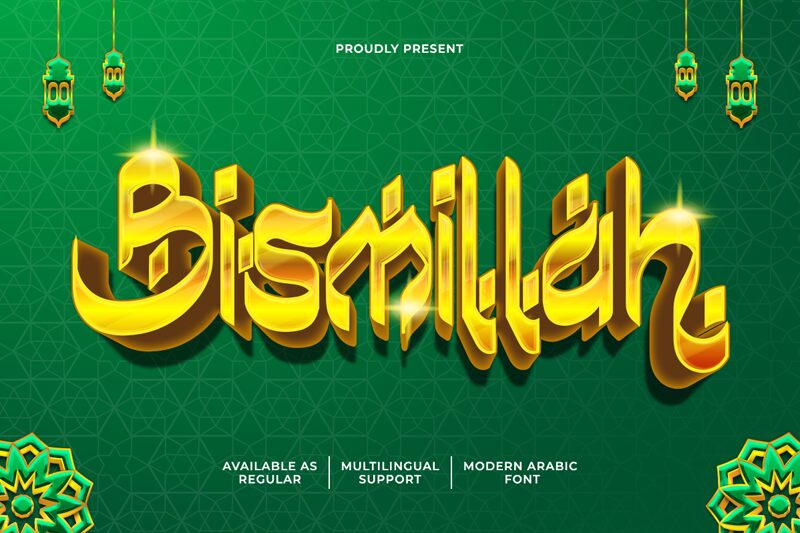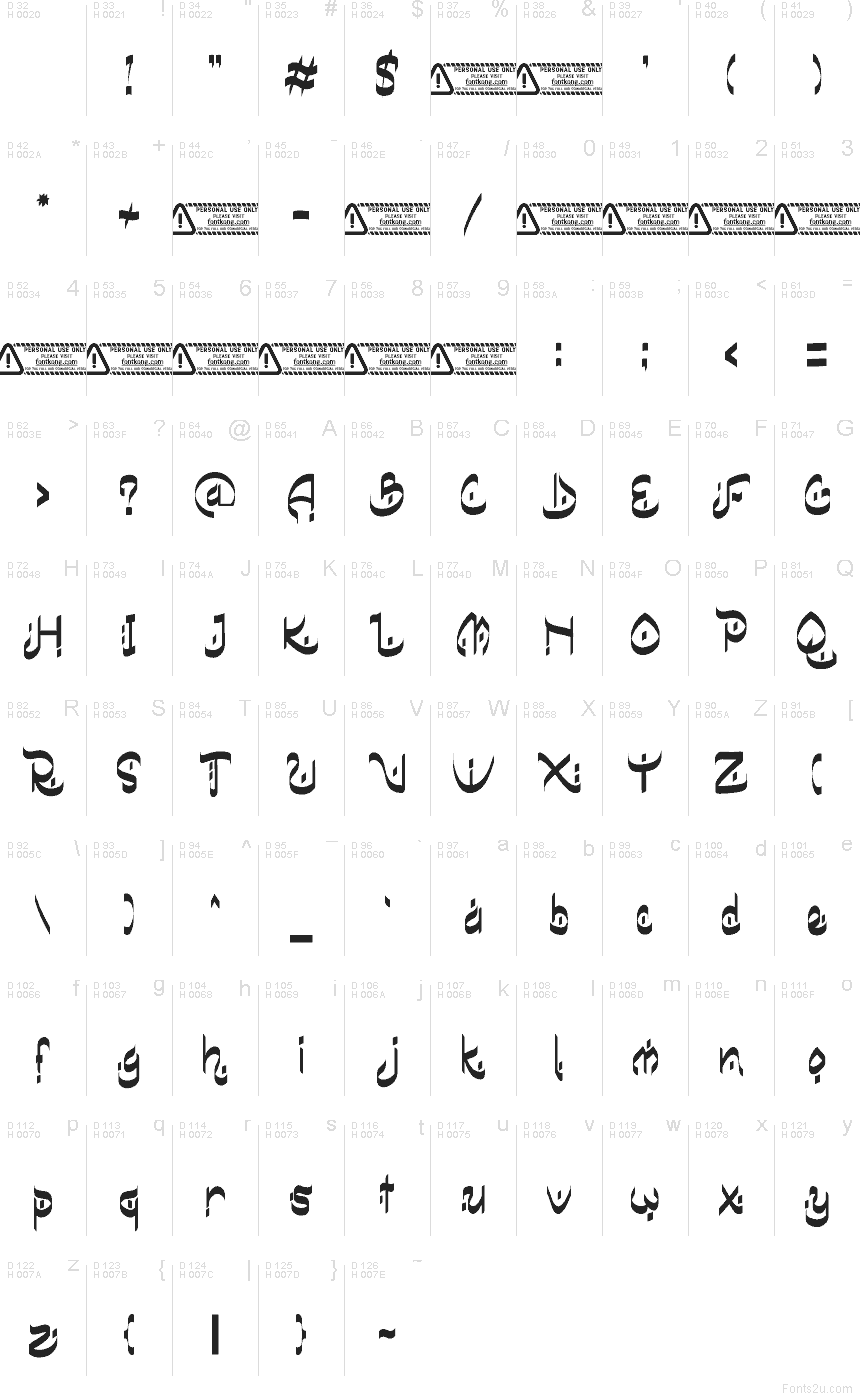
Bismillah font by Kong Font is a free faux-Arabic decorative typeface that transforms Latin letters into bold, flowing strokes reminiscent of Middle Eastern calligraphy. Thick, inky curves twist into tight loops and hooks, creating a rhythm that feels both exotic and readable, especially at larger sizes. The letters lock together like a custom logotype, giving headlines a strong, unified silhouette that instantly signals theme and atmosphere.
Using Bismillah, this free font shines on restaurant branding, hookah lounge signage, festival posters, themed event invitations, packaging, and bold social media graphics. Its dense, sculptural forms work best in short words or phrases where you want maximum impact. For body copy or supporting text, pair Bismillah with a simple geometric sans-serif set smaller and lighter to let the decorative forms stay center stage.